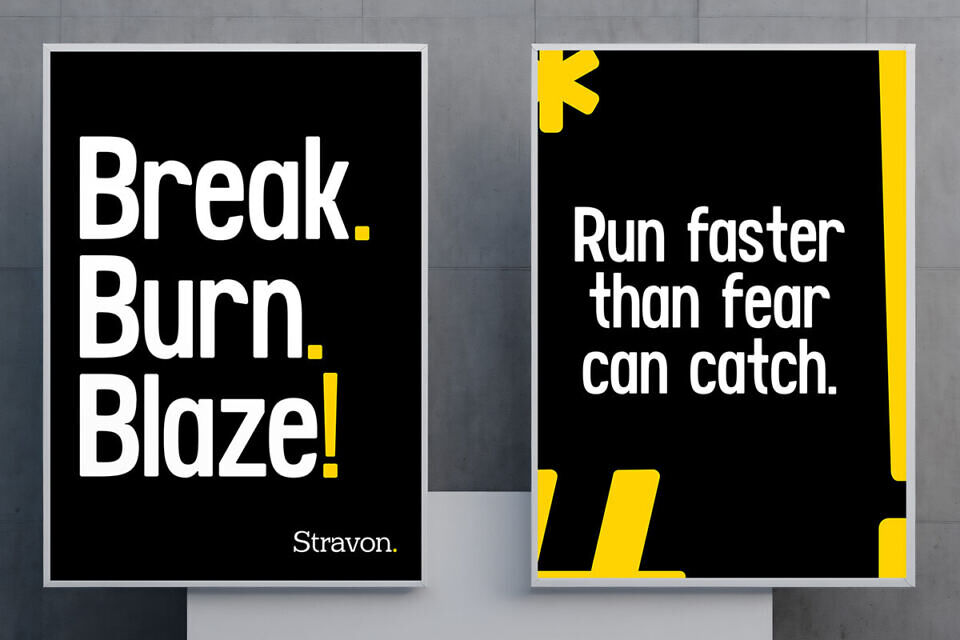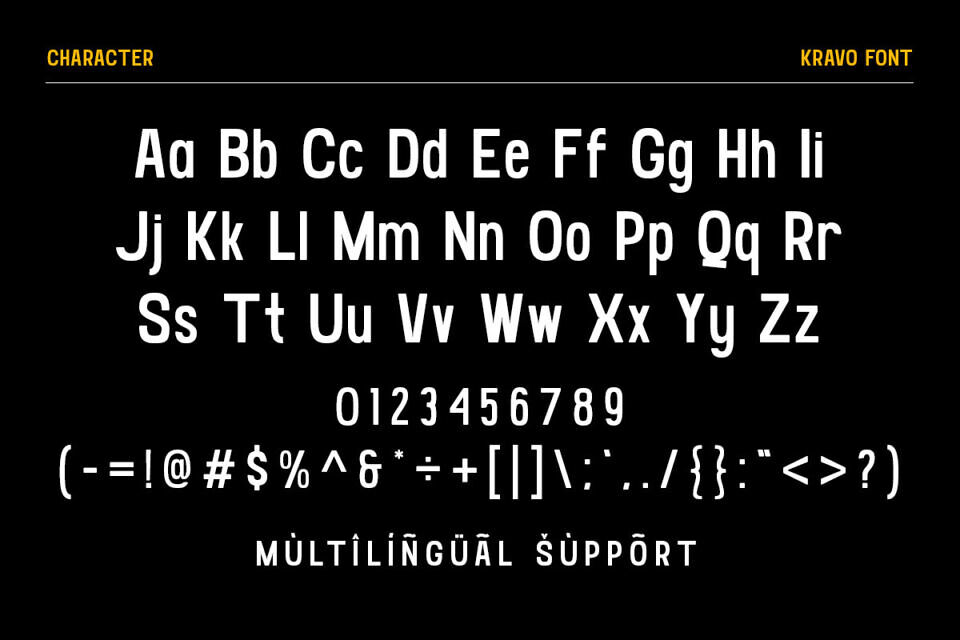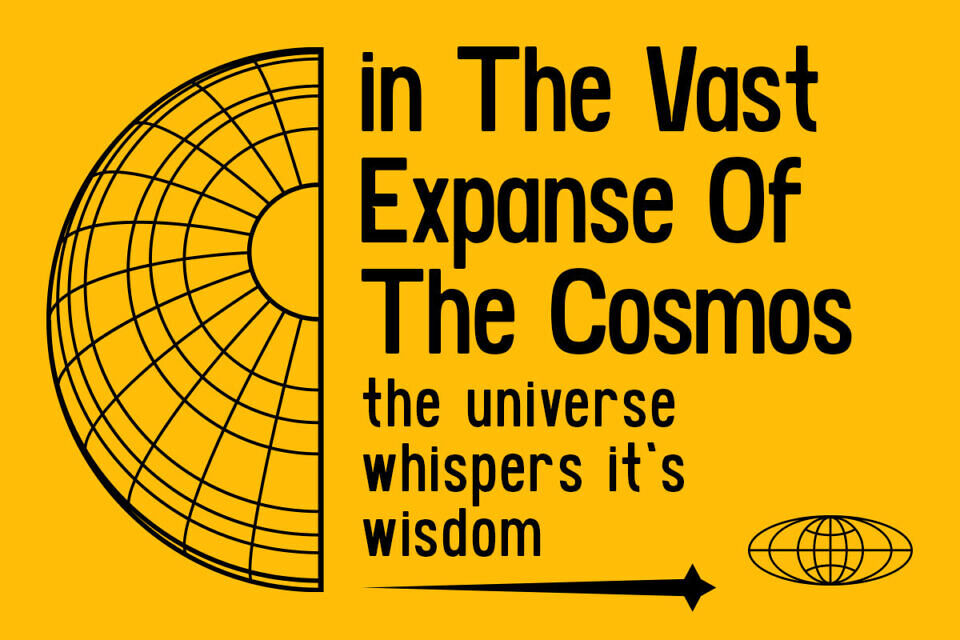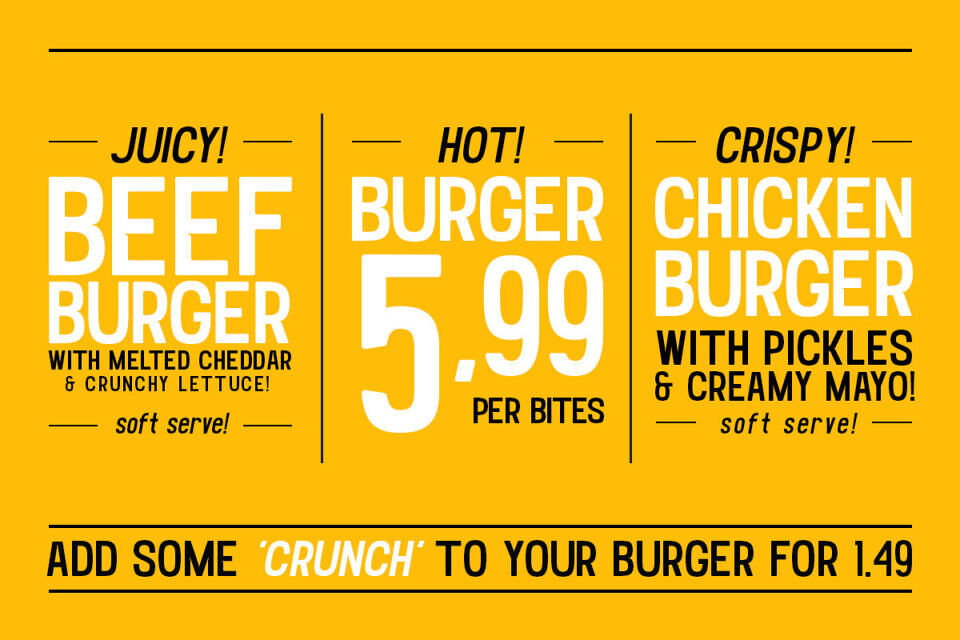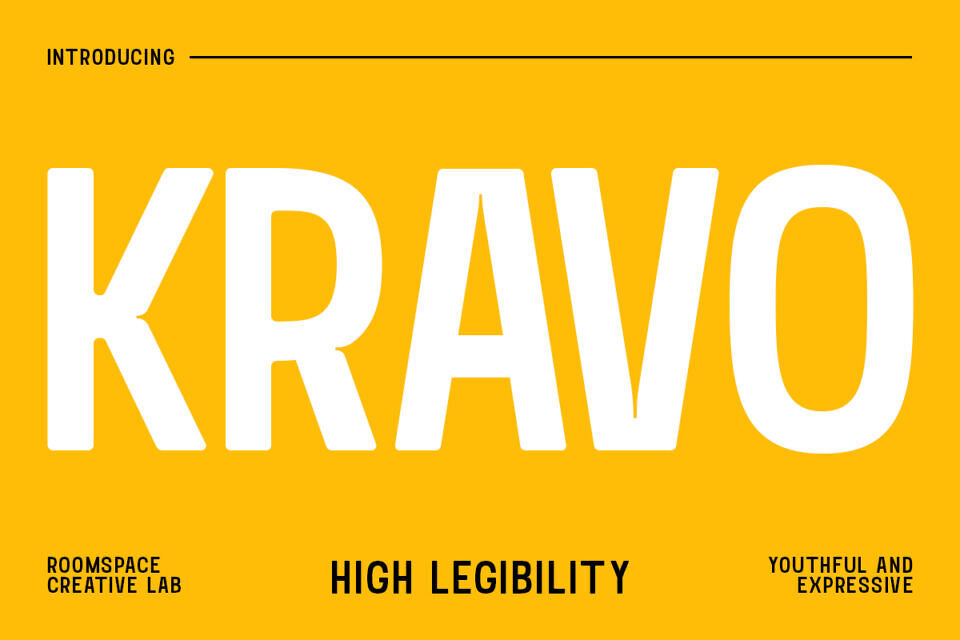
Kravo Font
Kravo is a bold and condensed sans serif typeface designed to command attention and make a powerful visual impact. Kravo’s tall structure and compact letterforms offer high legibility while maximizing space, making it the perfect choice for headlines, posters, editorial titles, and impactful branding.
With clean lines and a modern feel, Kravo delivers clarity with character perfect for designers who want to make a statement without overwhelming the layout. Whether you’re working on digital graphics, magazine covers, web headers, or campaign visuals, Kravo gives your words volume and presence.